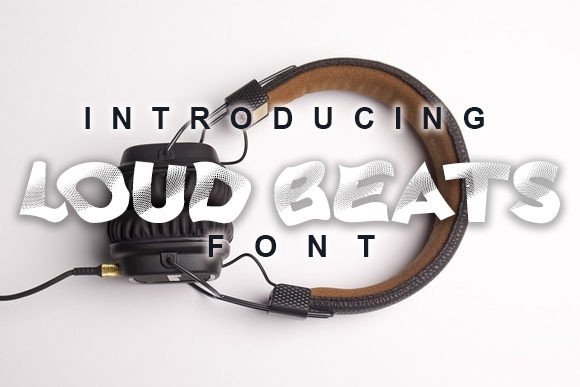
Are you ready to give your designs a burst of electrifying energy? Look no further than Loud Beats Font, the display font that will make your creations sing!
Loud Beats is the perfect font for injecting a touch of playfulness and whimsy into your designs. Its wavy, whimsical characters will dance off the page, adding a dynamic element to your posters, logos, and social media graphics.
With its captivating curves and energetic spirit, Loud Beats is sure to leave a lasting impression on your audience. Imagine the impact of your posters demanding attention with the bold proclamations of Loud Beats, or the allure of your social media posts captivating followers with its infectious charm. The possibilities are endless when you unleash the power of Loud Beats!